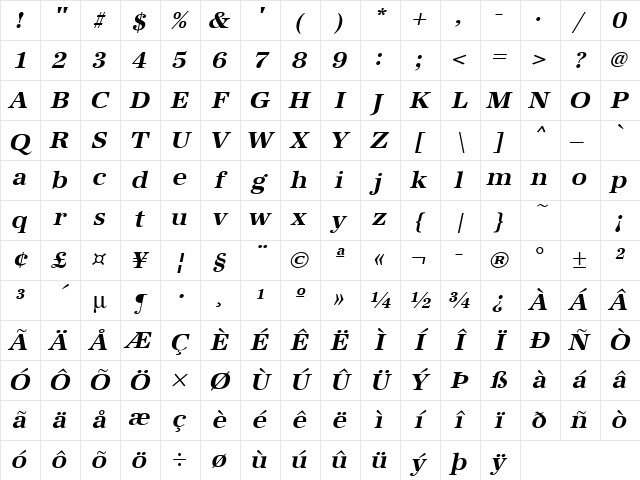
URWAntiquaTWid Bold Oblique
Style: Bold Oblique
URWAntiquaTWid Family
URWAntiquaTWid Bold Oblique
Design Context for URWAntiquaTWid
URWAntiquaTWid is a composed and adaptable typeface that performs quietly and consistently across a wide range of design contexts. The slanted form adds forward momentum and visual energy. Its bold stroke weight gives it real presence on the page.